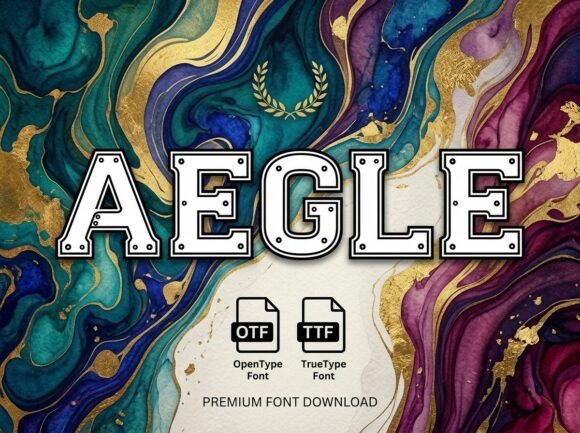
The Designer’s Quest for the Perfect Font: Discovering Aegle
I still remember the frustration of working on a project, hours spent searching for the perfect font that would capture the essence of a client’s brand. It was for a sports team logo, and I needed something bold, strong, and heroic. The font had to convey a sense of power, precision, and a touch of industrial ruggedness. I scoured through countless font libraries, but nothing seemed to fit the bill. That was until I stumbled upon Aegle, a monumental display typeface that would change the game.
Aegle: The Font that Checks All the Boxes
Aegle is more than just a font; it’s a statement piece. With its heavy, slab-serif letterforms and unique “riveted” aesthetic, it’s the perfect blend of mythic and industrial. The rhythmic bolt details and double-outline structure give it a collegiate power and mechanical precision that’s hard to find elsewhere. Here are some of the things I love about Aegle:
- ✨ Massive structural weight: Aegle’s bold and imposing presence makes it perfect for headlines, titles, and logos.
- ✅ Heroic presence: This font demands attention and radiates confidence, making it ideal for branding and advertising.
- 💪 Versatility: Aegle can be used for a wide range of projects, from sports branding to industrial-themed brewery logos, cinematic historical titles, and social media headers.
The Honest Review: Not Perfect, but Close
While Aegle is an exceptional font, it’s not without its quirks. Here are a few things to keep in mind:
- 🤔 Limited use cases: Aegle’s bold and industrial aesthetic may not be suitable for body text or more elegant designs.
- ⚠️ Glyph limitations: While Aegle has a wide range of glyphs, some users may find that it lacks certain special characters.
Aegle’s design is inspired by the intersection of industrial and mythological themes. The font’s creator aimed to craft a typeface that would evoke a sense of strength, power, and precision. By combining heavy, slab-serif letterforms with a unique “riveted” aesthetic, Aegle was born.
| What is Aegle best used for? | Aegle is ideal for bold, high-impact designs such as sports branding, industrial-themed brewery logos, cinematic historical titles, and social media headers. |
| Is Aegle suitable for body text? | No, Aegle’s bold and industrial aesthetic makes it better suited for headlines and titles rather than body text. |
| Does Aegle have OpenType features? | Yes, Aegle features OpenType capabilities, including stylistic alternates and glyphs, which can be accessed through the OpenType panel in compatible design software. |